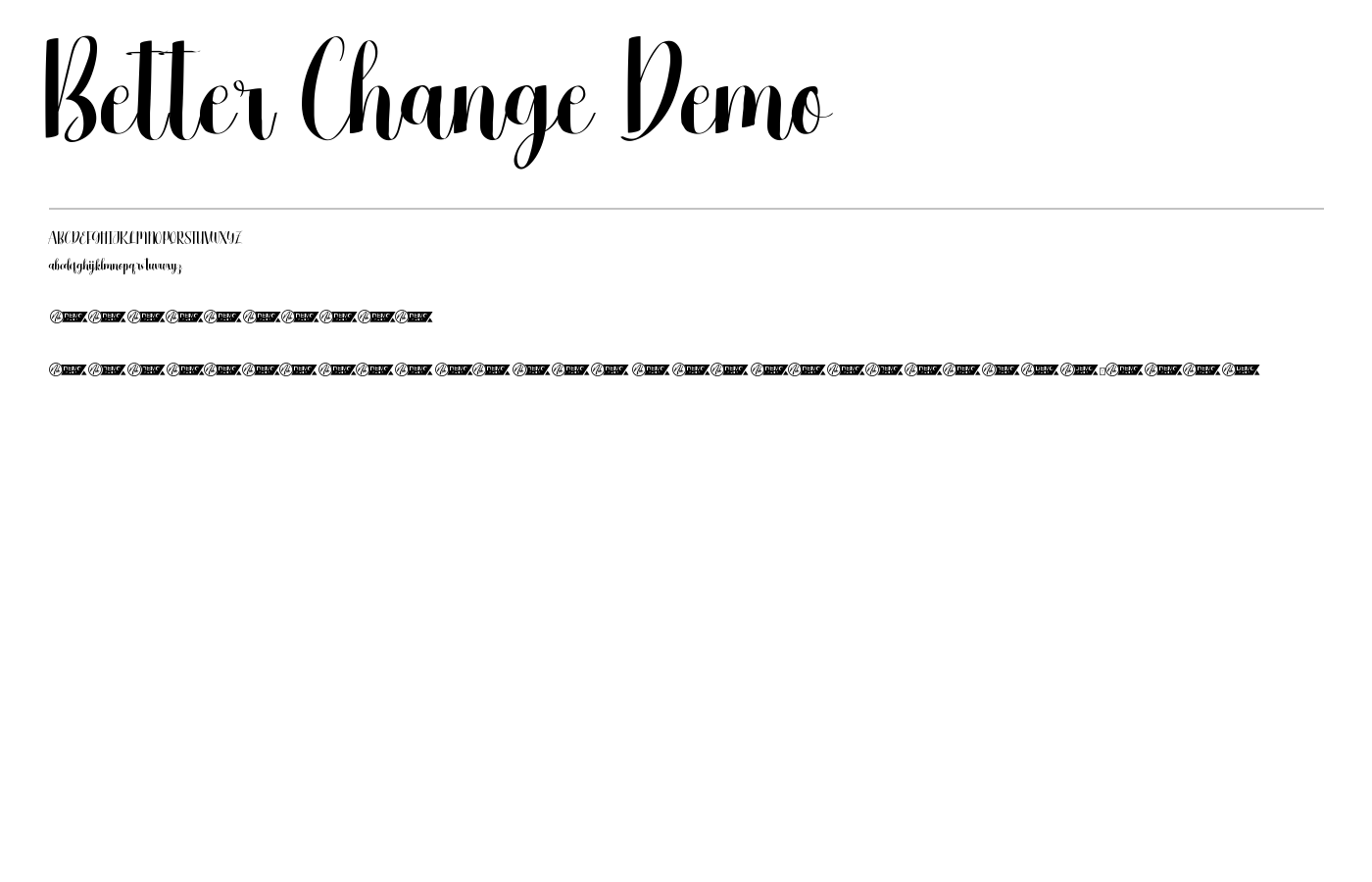
Better Change Demo is an elegant script font characterized by its tall, slender letterforms and high contrast between thick and thin strokes. Its fluid curves and delicate flourishes convey a stylish and sophisticated personality, making it ideal for fashion branding, invitations, and decorative headlines. This font works best in designs that seek a refined and graceful look, bringing a touch of luxury and charm to creative projects.
Better Change Demo Font
| Font family | Better Change Demo Font |
| Designer | Widiyanti |